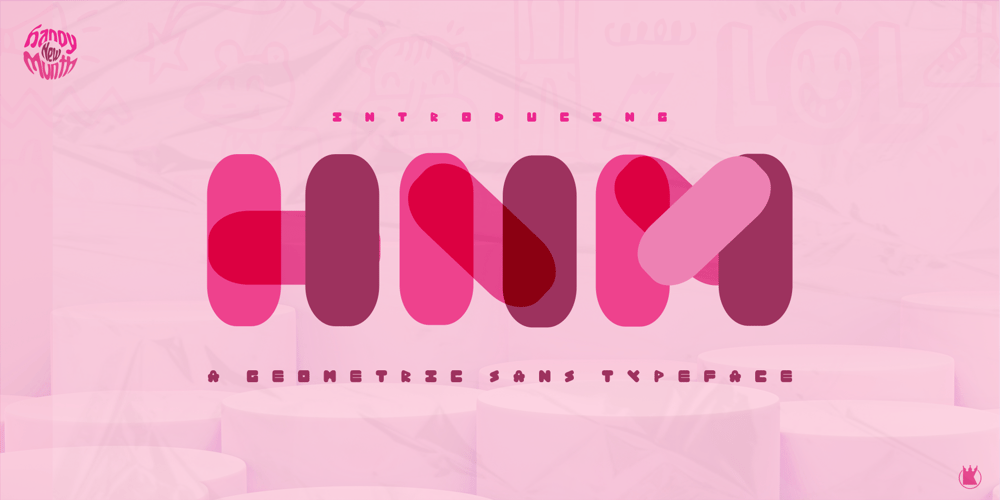
Hnm Font Family was designed by David Shopekan and published by Krown Creative Factory. Hnm contains 1 styles and family package options. Hnm is a Geometric Sans Typeface with some bold and round glyphs to give a sense of confidence but also not rigid or strictly its a jovial Happy Typeface It can be used to create a range of design projects like posters, advertising and marketing flyers and even to printed items. It just requires you to use your imaginative strength and your design projects will look more native and even better pass your message.With this typeface you can create a party poster, movie flyer, advertising and marketing posters, it can also be used on branding items, Craft design, book covers, music cover arts, or any purpose of your choice to make your designs have that bold and confident look without looking too serious, feel free to play with this typeface.